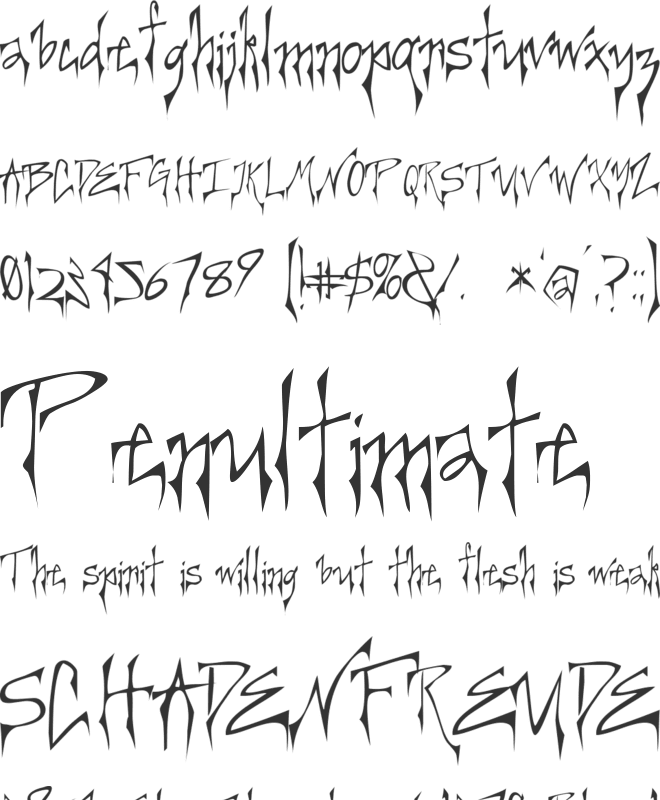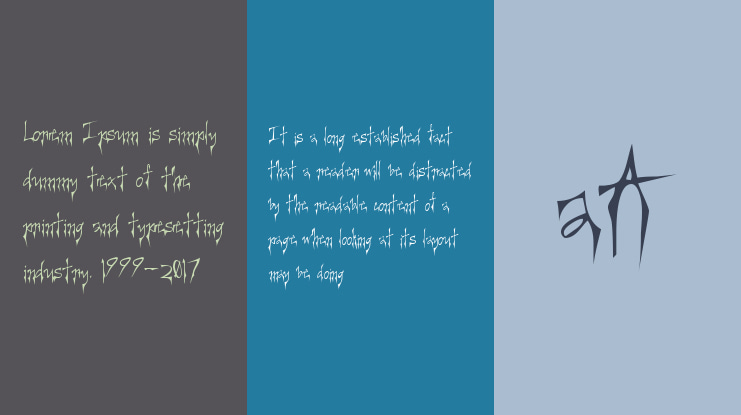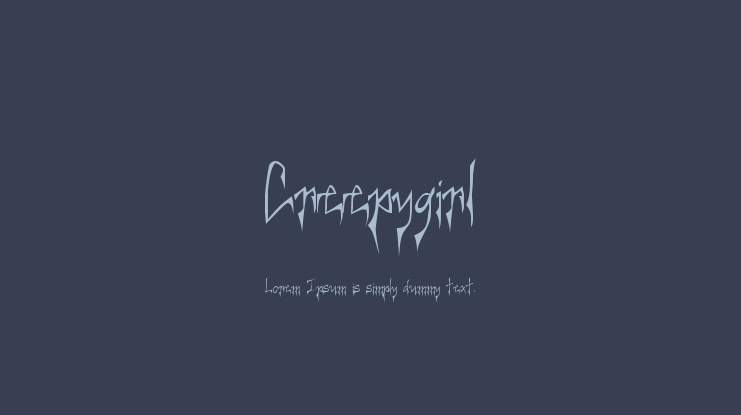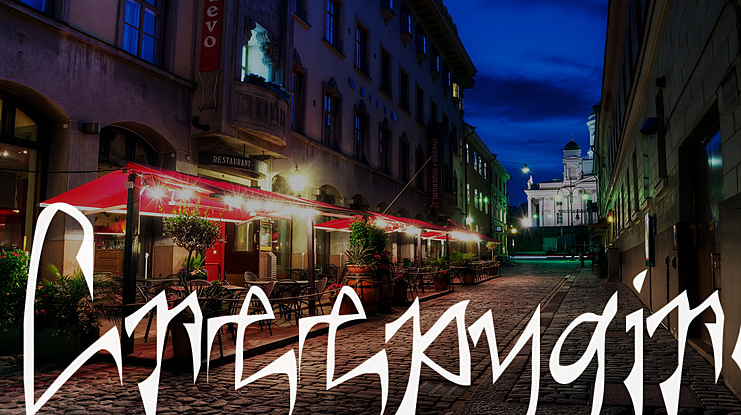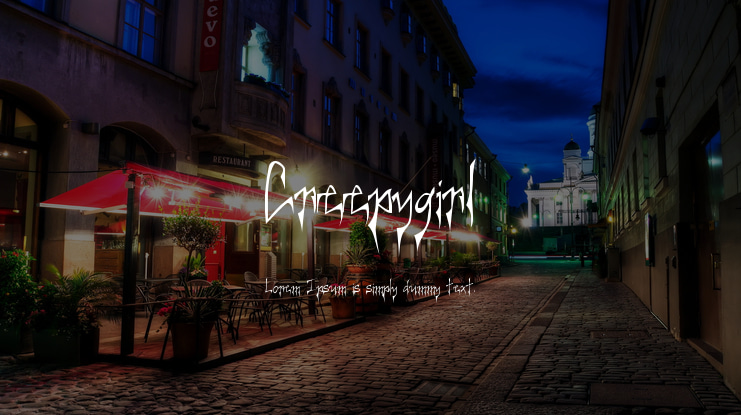
Creepygirl Font Family
Yes, another pointy, somewhat disturbing font, or in this case a family of
fonts.
Design by Elly Burian, famed net.goth and quite a creepy girl herself.